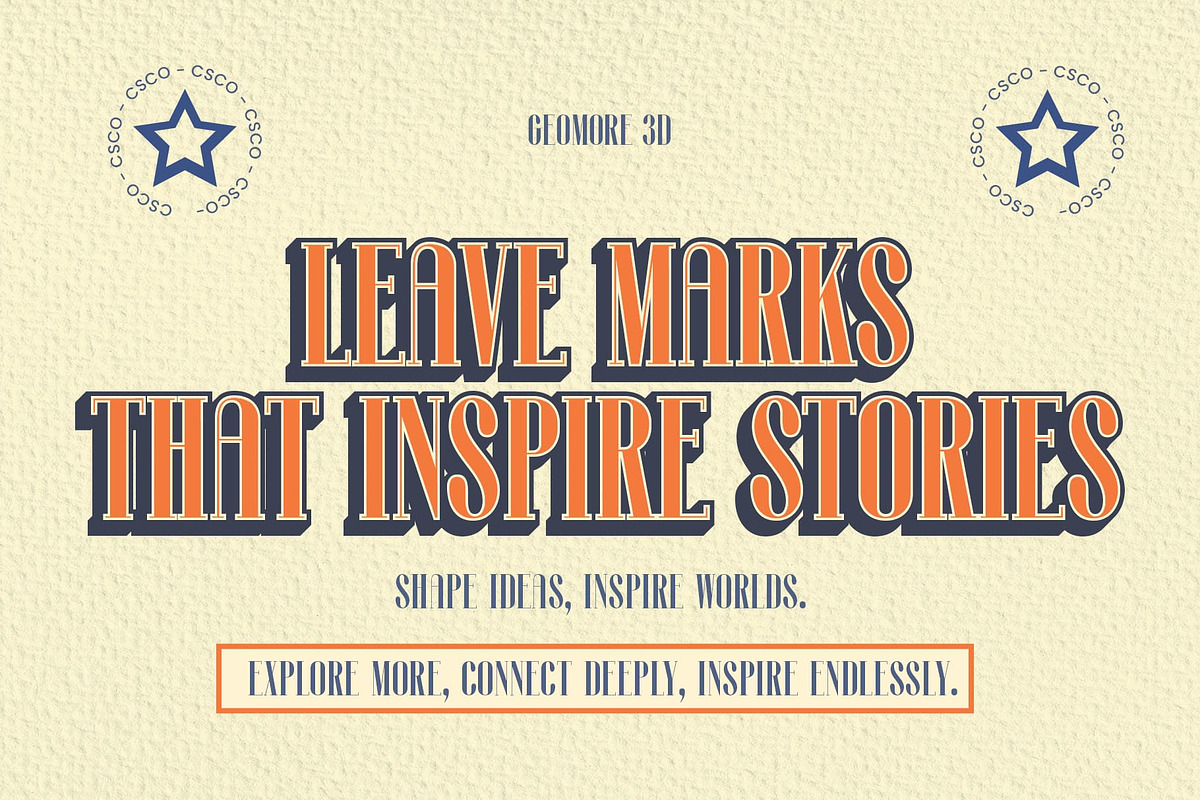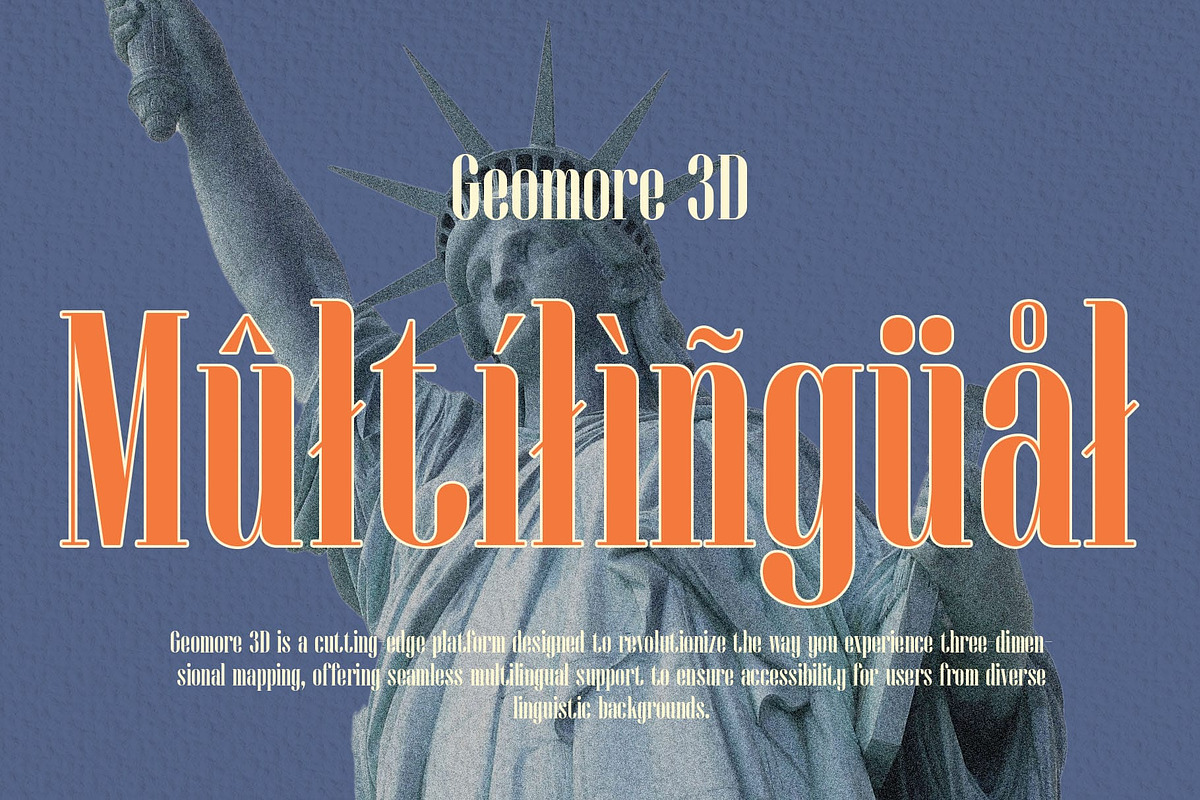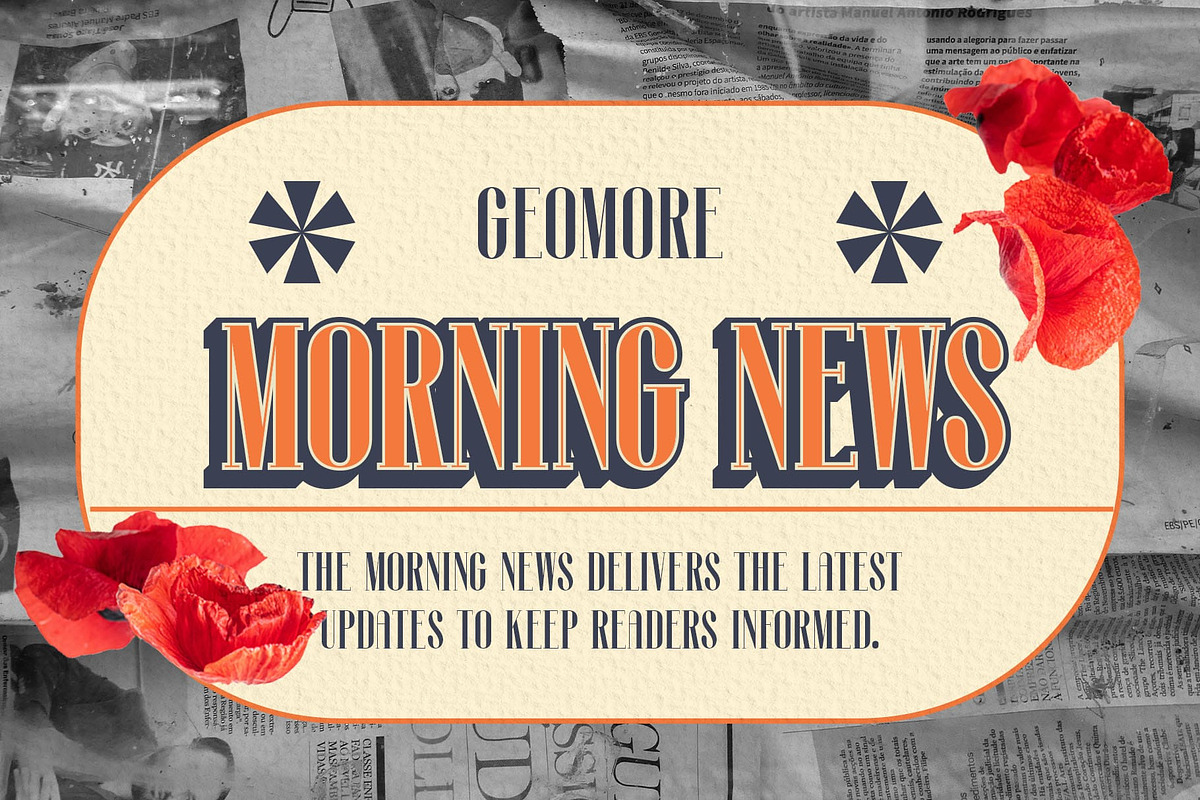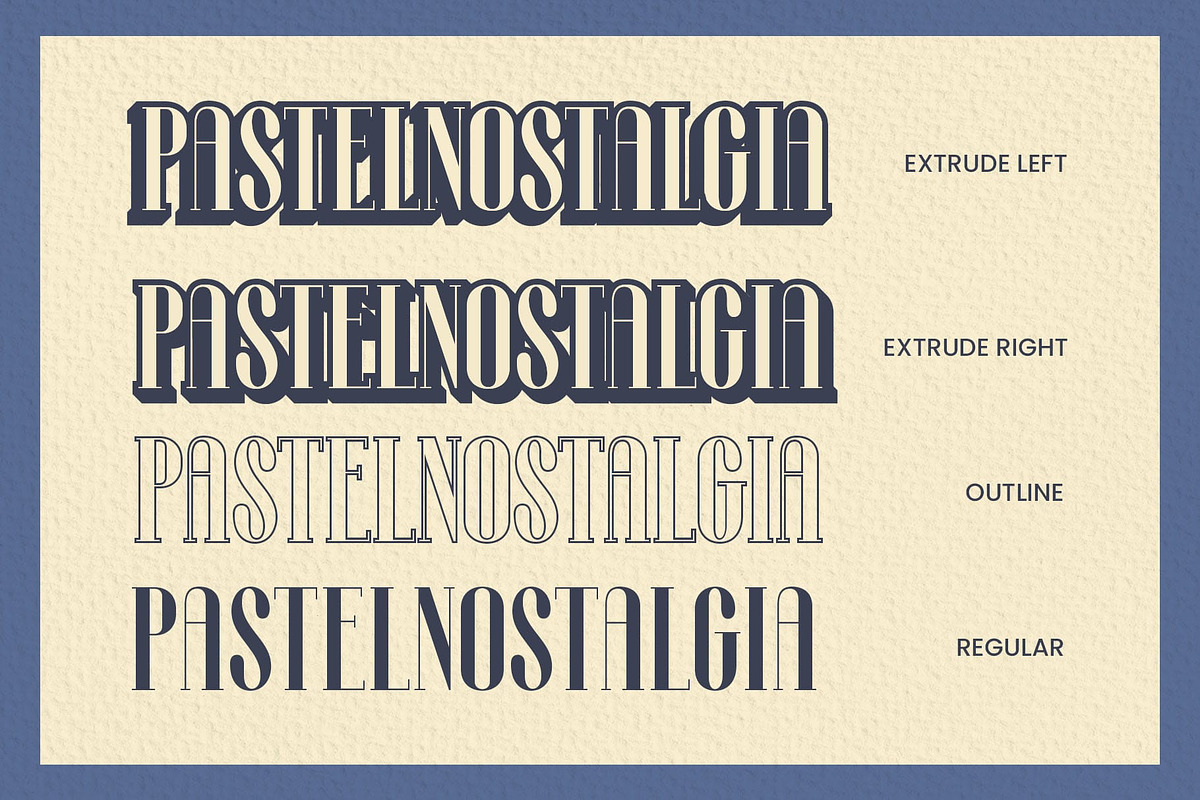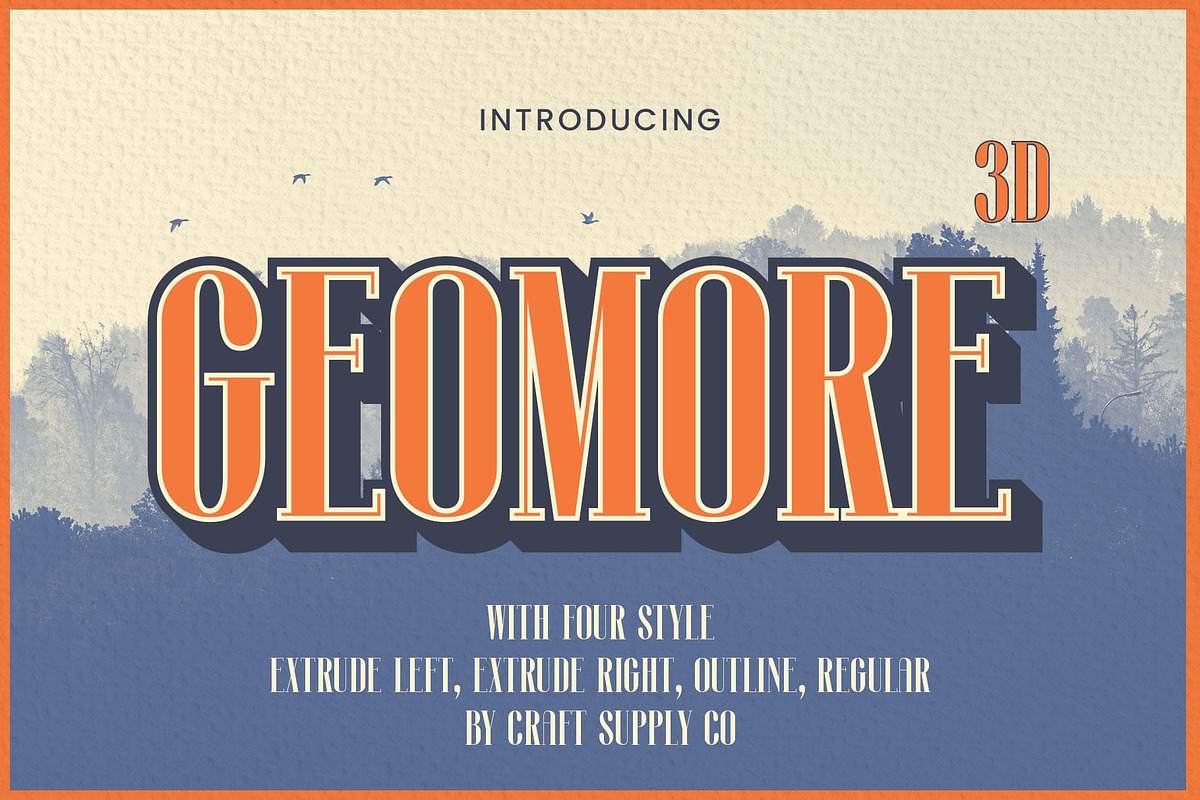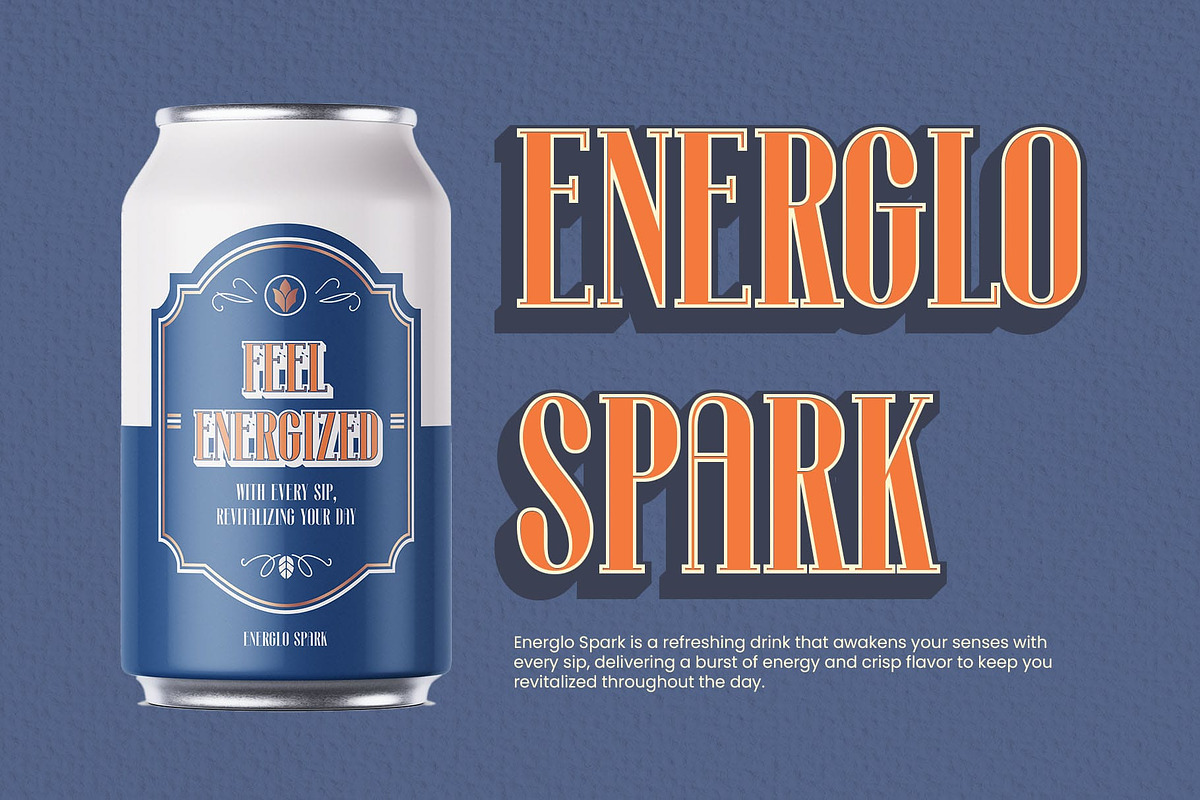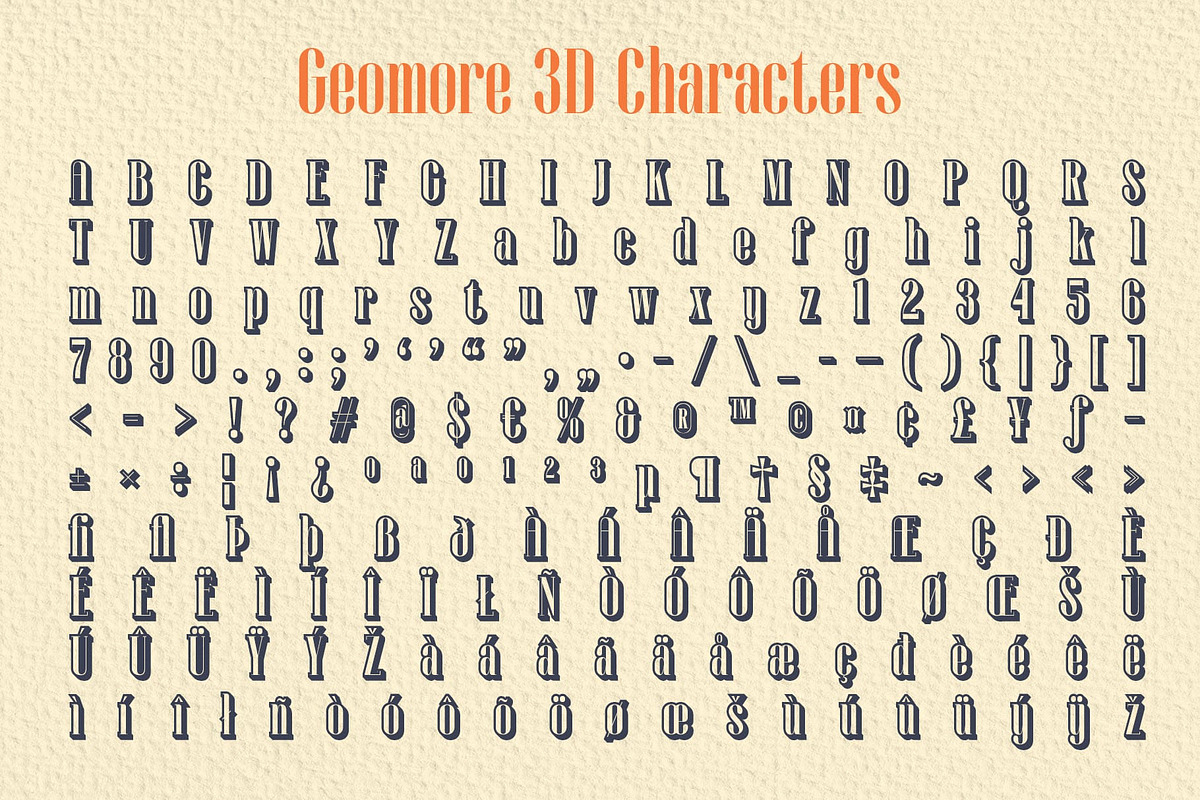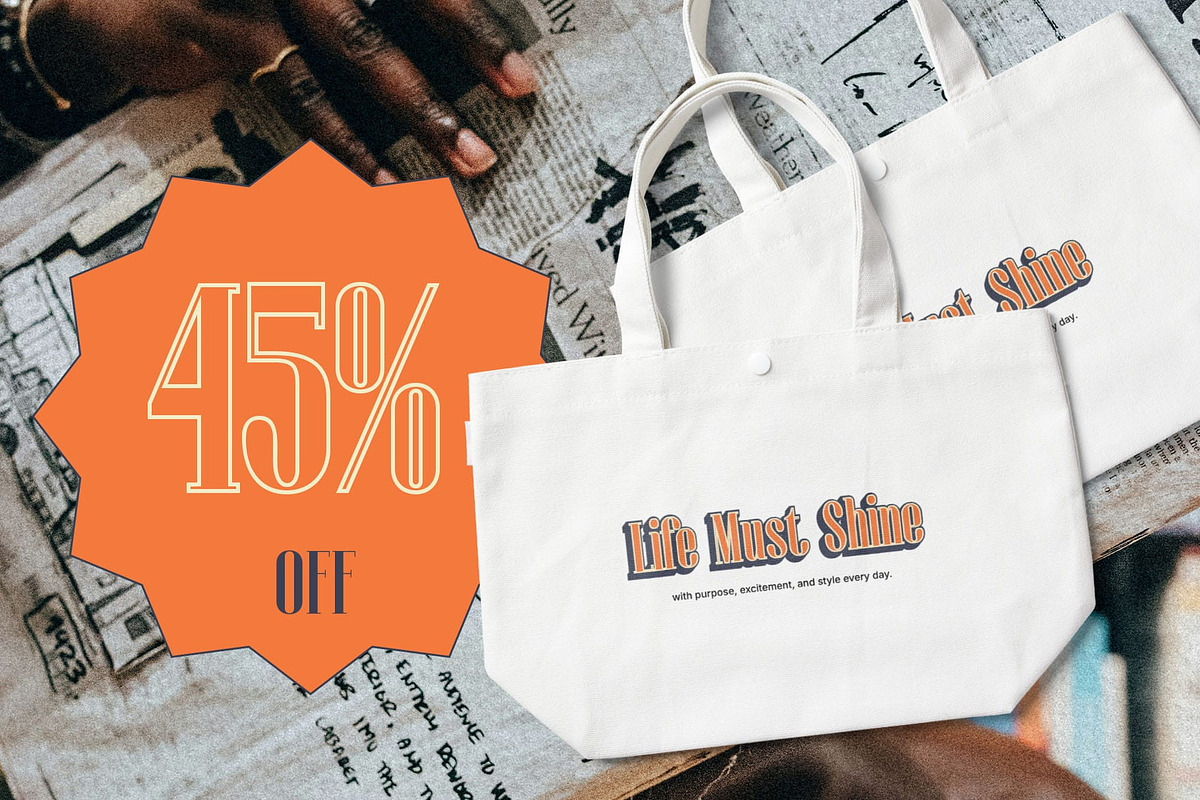
Geomore 3D
Geomore 3D Font: Timeless Elegance with Modern Depth
Classic Serif with a Contemporary Edge Geomore 3D is a classic serif font that masterfully blends traditional sophistication with a modern touch. Its narrow, refined letterforms are meticulously designed to evoke a sense of elegance and grace, making it suitable for high-end projects that demand attention to detail and class.
Striking 3D Effect for Dimensional Appeal The 3D effect in Geomore 3D adds a captivating sense of depth and dimension, transforming static text into visually dynamic elements. This feature enhances the font’s aesthetic appeal, making it an excellent choice for projects where a polished and standout impression is essential.
Perfect for Sophisticated and Upscale Designs Geomore 3D’s condensed form and intricate design make it ideal for sophisticated branding, luxury editorial layouts, and upscale advertising. Its ability to convey both classic charm and modern innovation ensures it seamlessly fits into various creative contexts, from fashion magazines to premium product packaging.
Versatile for Diverse Applications Whether used in logos, headlines, or promotional materials, Geomore 3D provides a unique balance of style and readability. Its timeless serif design, coupled with the contemporary 3D twist, ensures a polished and professional look that elevates any design project.